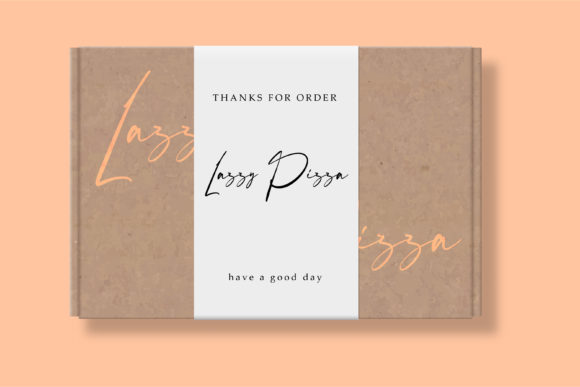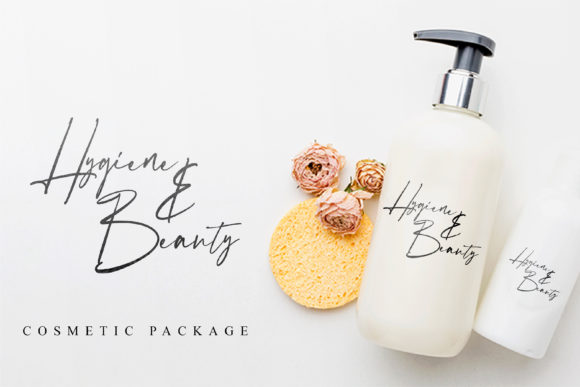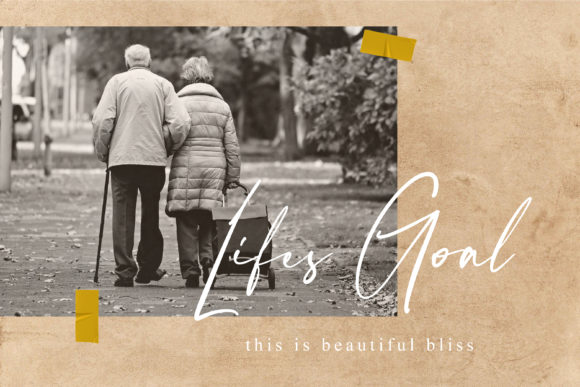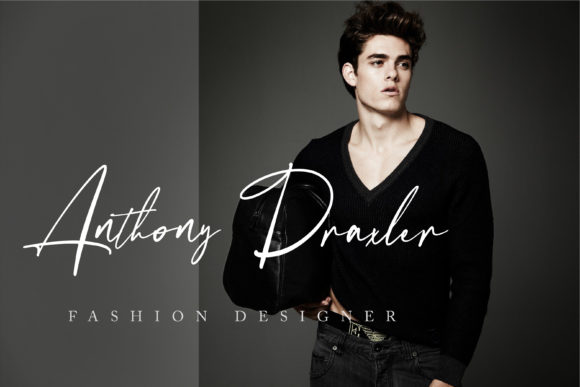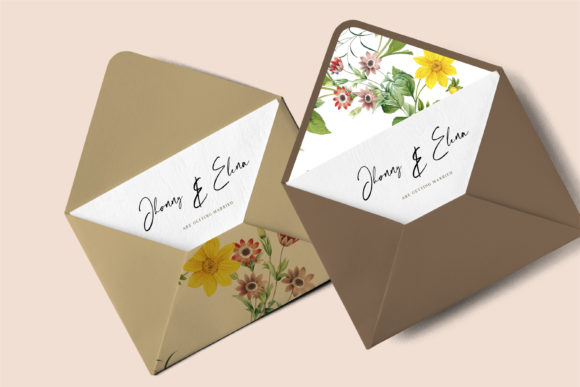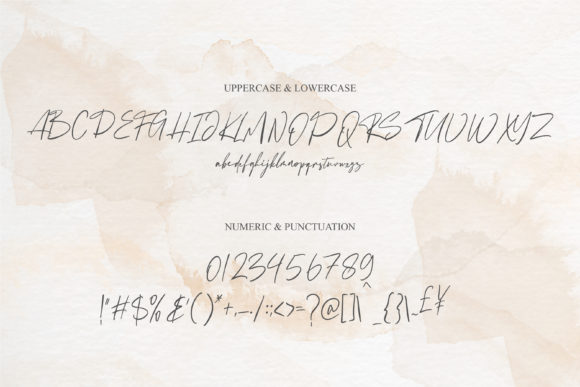
Introduction to Fiamond Font
Fiamond is a beautiful and luxurious handwritten font.
It will look perfect on photography designs, watermark product packaging, special events or anything that needs a delicate taste .
Key Features of Fiamond Font